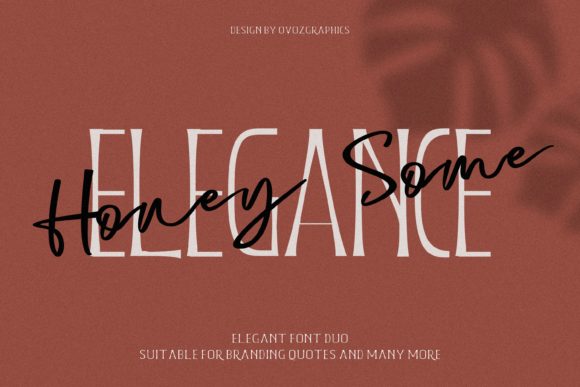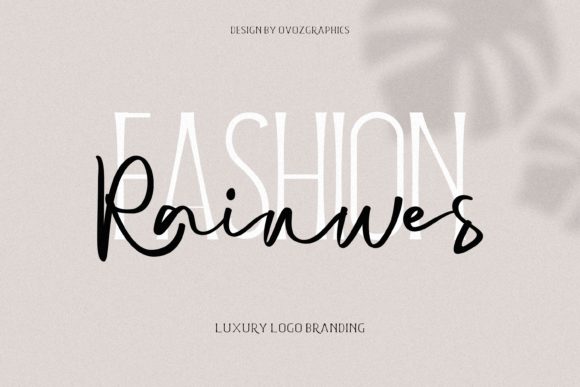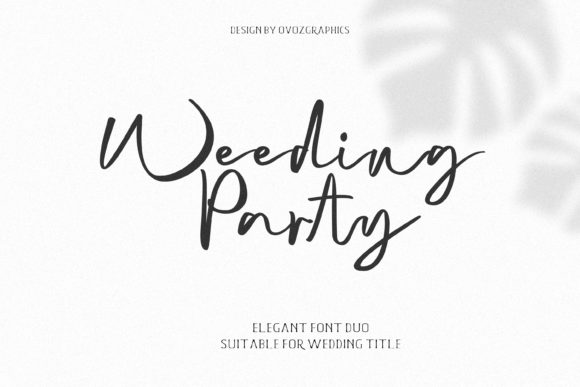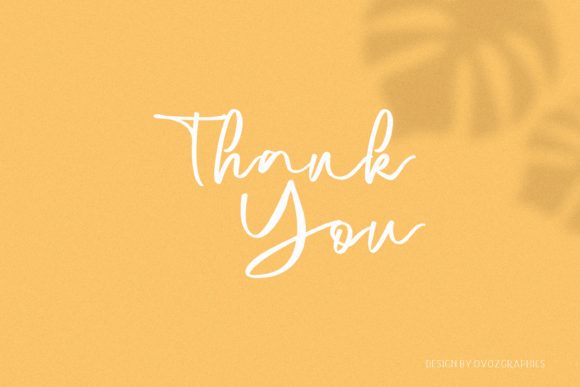
Honeysome Duo Font
About Honeysome Duo Font
Honeysome is an incredibly modern and light font duo. It combines an authentic script and an elegant sans serif font into a one-of-a-kind package.